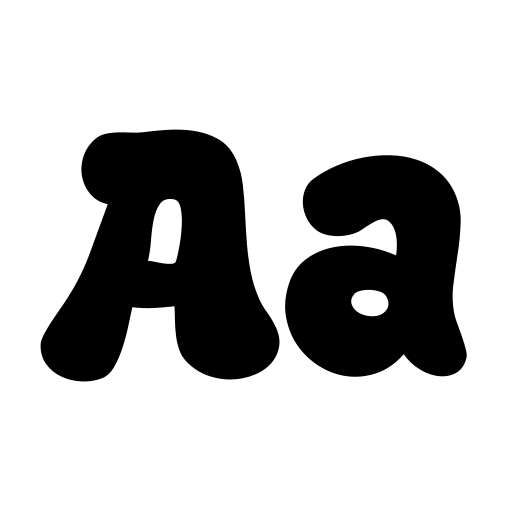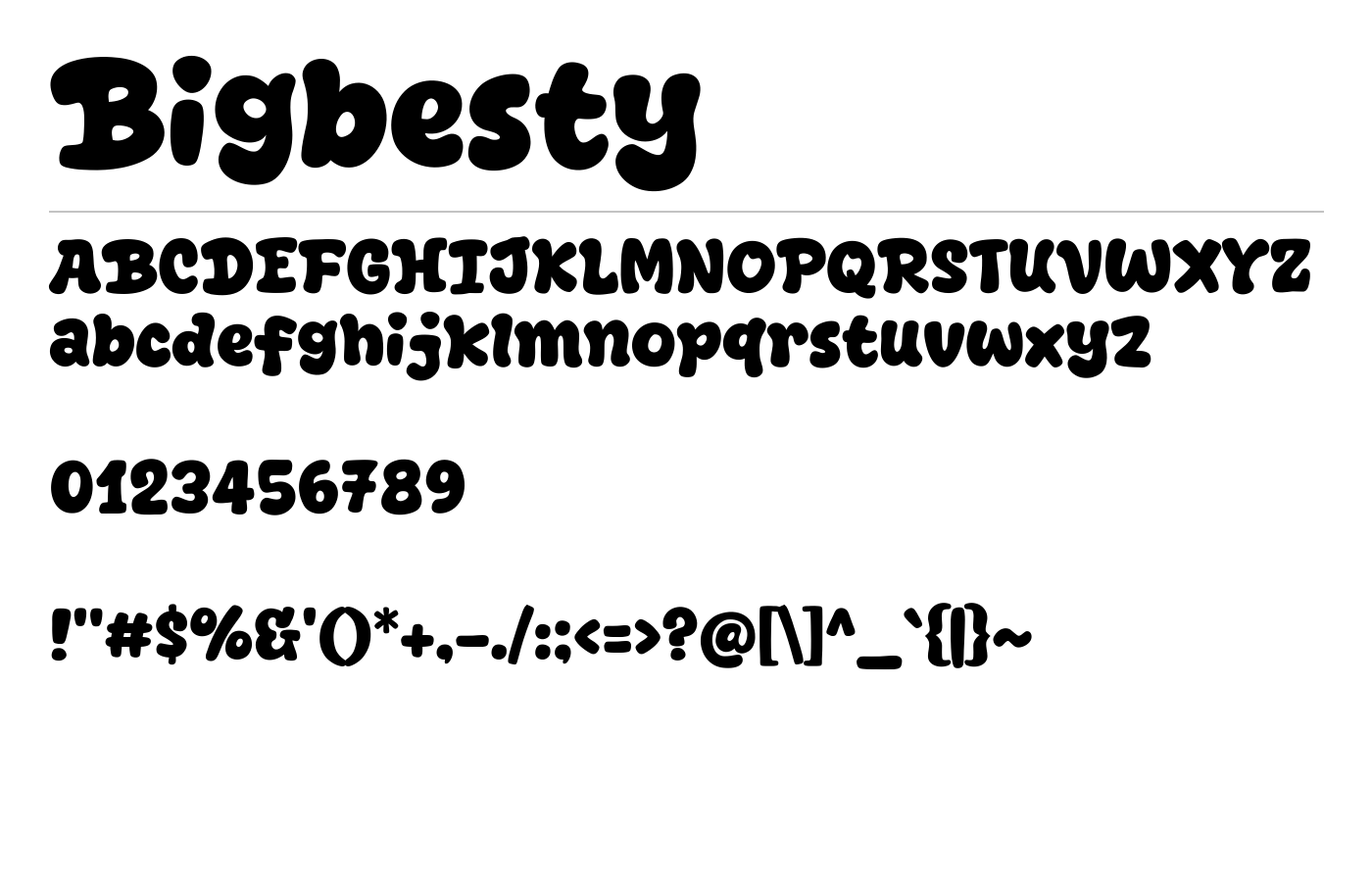
Bigbesty is a playful, bold sans serif font with a chunky, rounded style that feels friendly and approachable. Its thick, uniform strokes and soft curves make it perfect for eye-catching headlines, children’s content, and fun branding projects looking to evoke warmth and cheerfulness. This font works best where a lively, informal tone is desired, adding personality and charm without sacrificing readability.
Bigbesty Font
About Bigbesty Font
| Font family | Bigbesty Font |